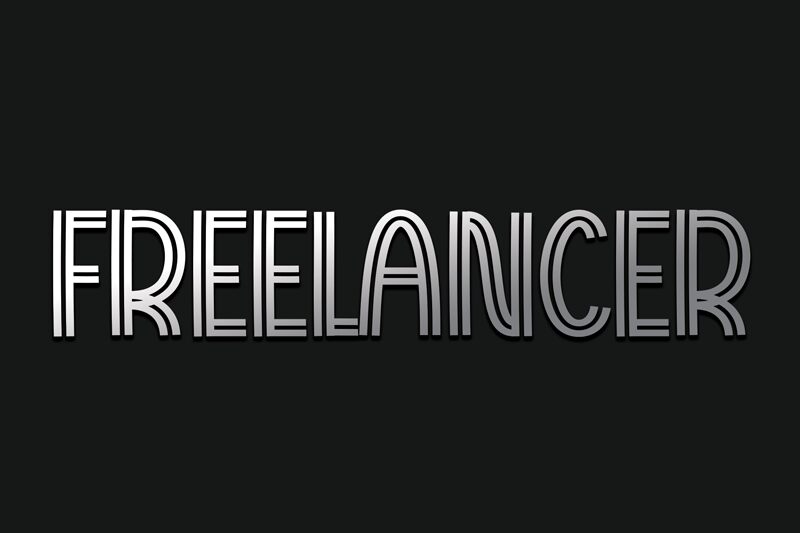
Freelancer
Freelancer, designed by Scratchones, is a display font that commands attention with its extra-condensed width and bold presence. Crafted with precision, this typeface boasts a sleek and streamlined appearance that exudes modernity and efficiency. Its tightly packed letters are designed to make a striking visual impact, offering a contemporary edge to any creative project.
The aesthetic appeal of Freelancer lies in its clean lines and minimalist design, making it an excellent choice for branding, headlines, and any space where you need to make a strong statement without overwhelming the content. The extra-condensed style not only provides an air of sophistication but also allows for creative versatility across various media platforms.
Ideal for designers looking to infuse their projects with a sense of professionalism and forward-thinking design, Freelancer stands out in its ability to merge functionality with style. Whether it's print or digital media, this font holds the potential to elevate your work with its distinctive character and stylish allure.